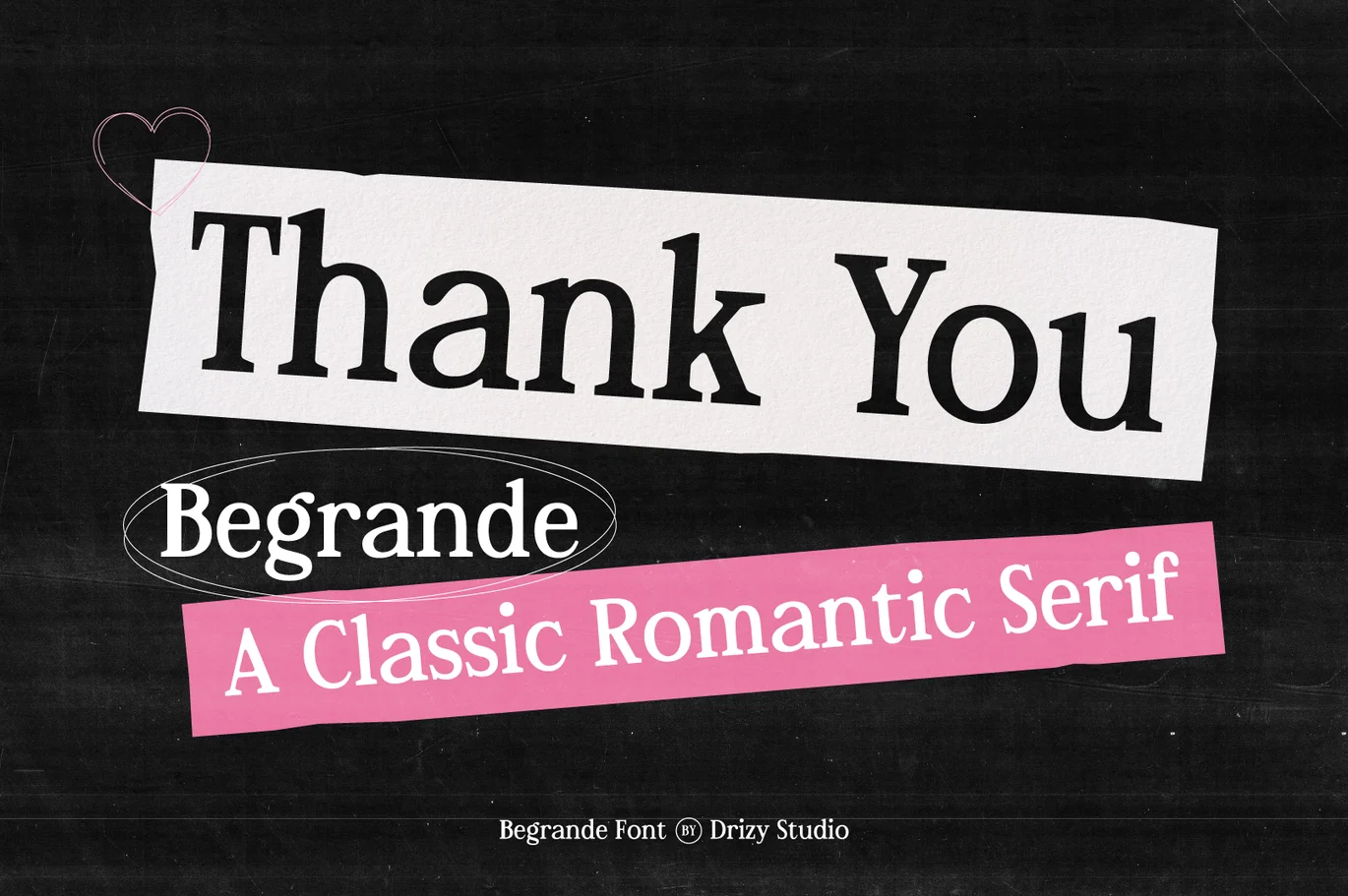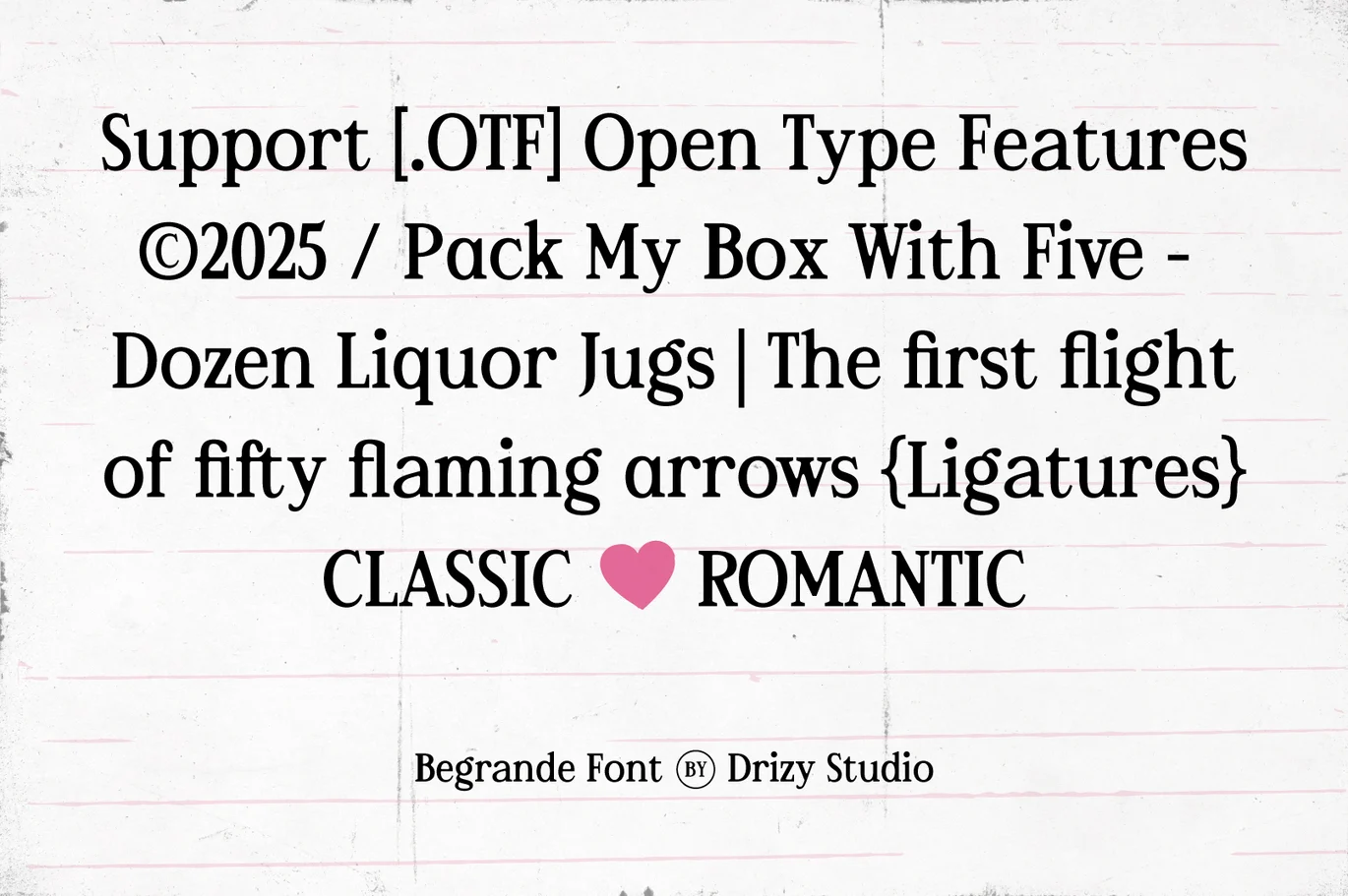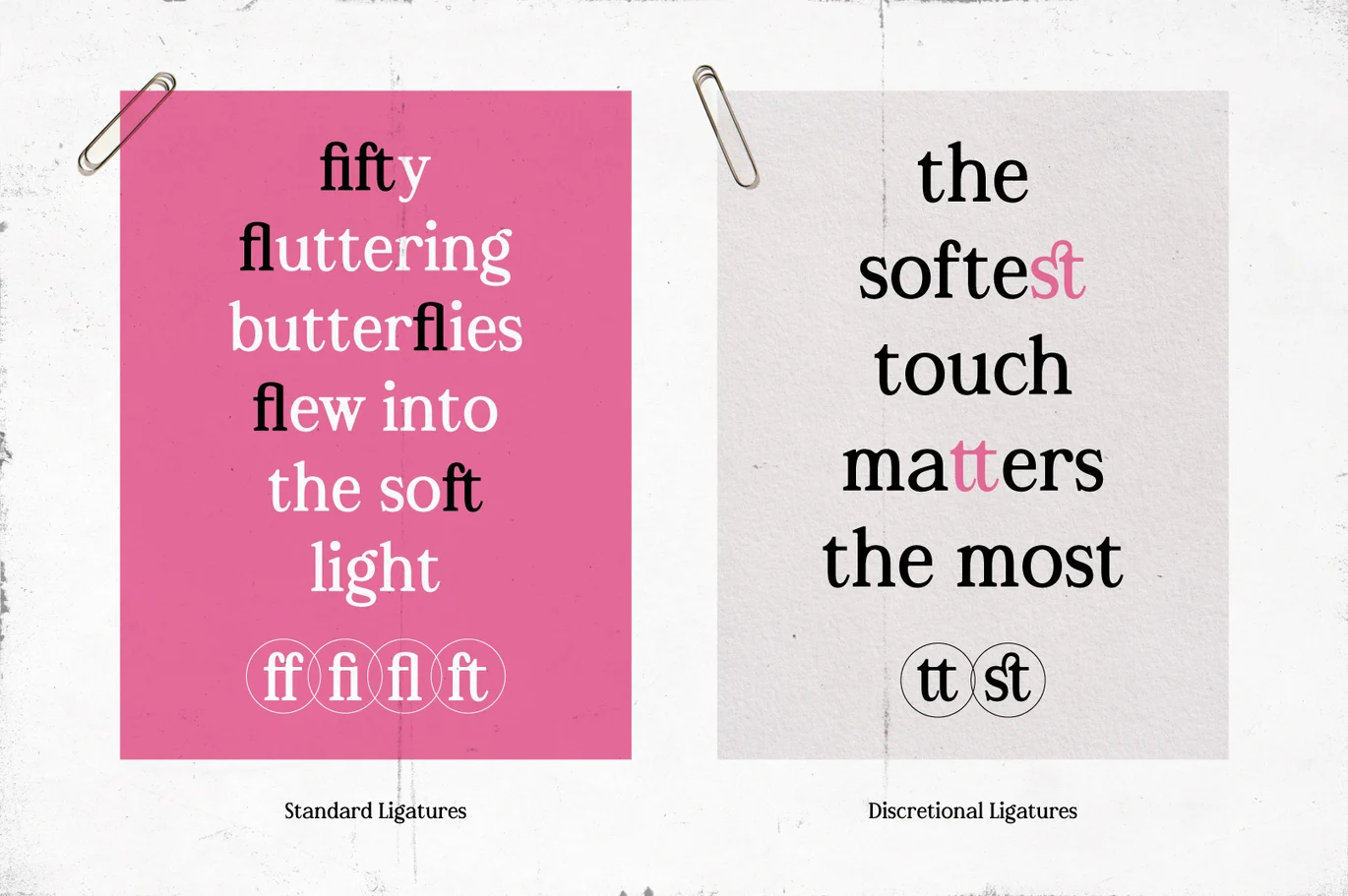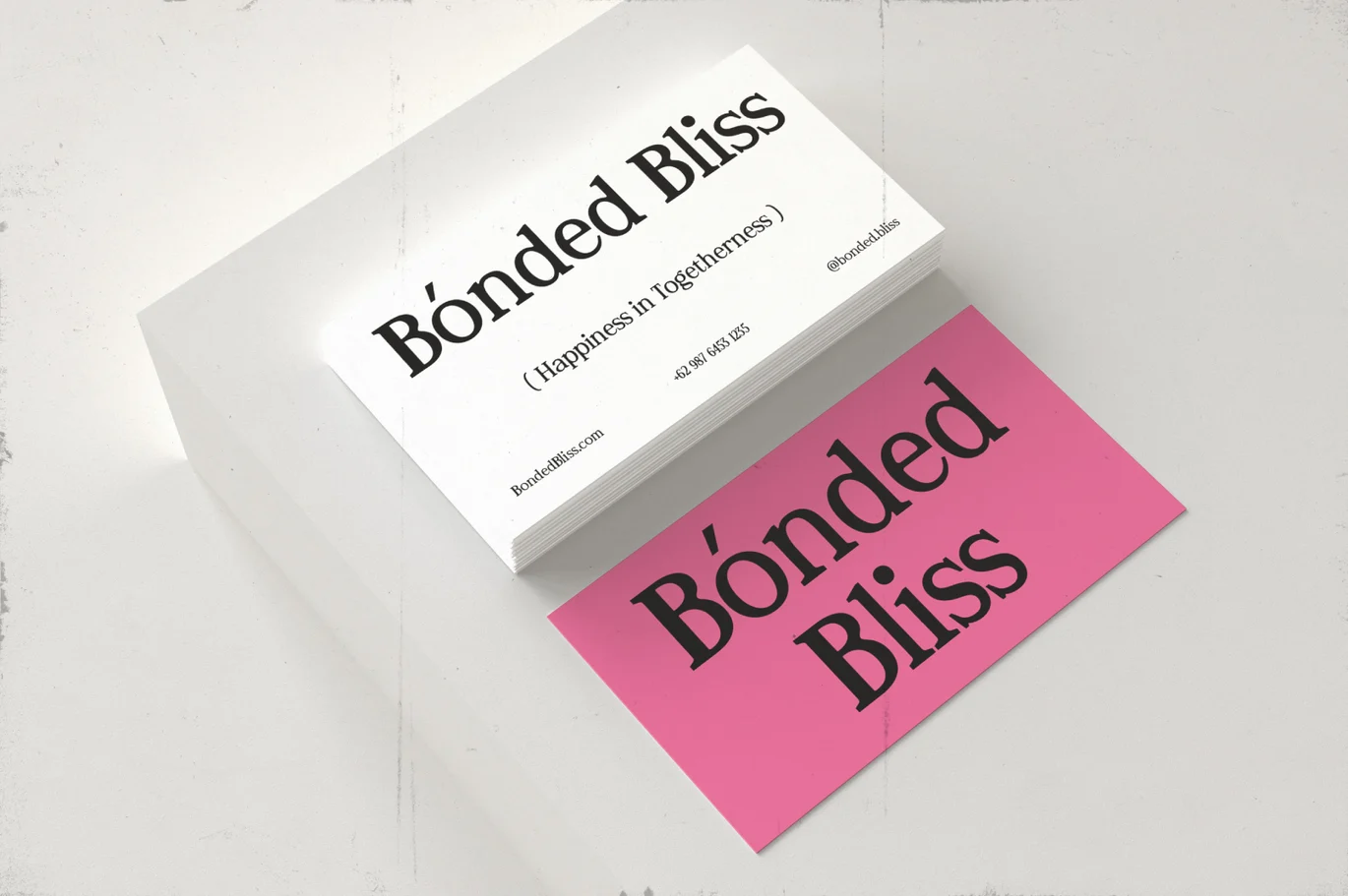
Begrande – Classic Romantic Serif Font
Begrande is a timeless typeface that effortlessly combines elegance and emotion, making it the perfect choice for your romantic and expressive designs. With its graceful curves, delicate serifs, and a touch of vintage charm, Begrande captures the essence of love and drama. Ideal for wedding invitations, poetry collections, heartfelt letters, or emo-inspired designs, this font adds a classic yet emotional flair to your projects. Let Begrande’s romantic spirit elevate your typography and bring a story to life in every letter.
Begrande features:
- Character Set (Uppercase & Lowercase)
- Punctuation & Numbers
- Standard & Discretional ligatures
- Alternates "a"
Elevate and explore the design possibilities with this Emo Romance Font!